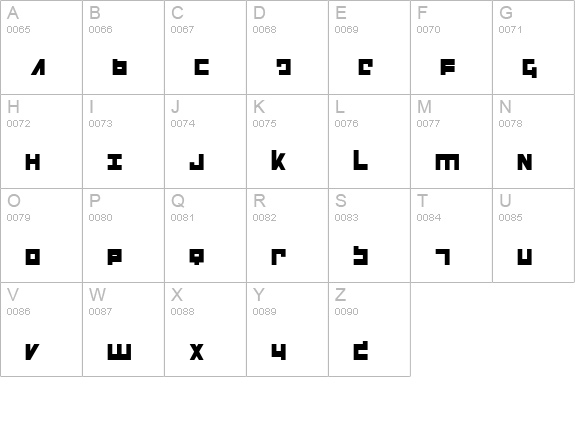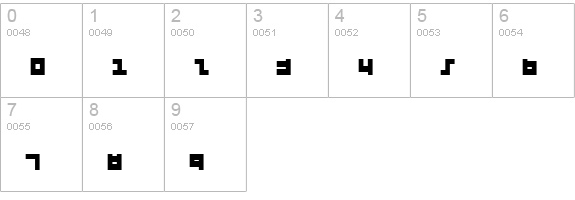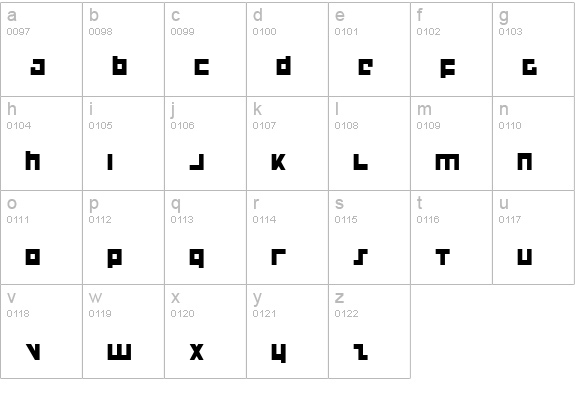
Flight Corps Condensed is a distinctive, condensed-width variant in the Flight typeface family \xE2\x80\x94 well suited to design and typography projects.
Flight Corps Condensed is a sleek and modern sans-serif font that exudes professionalism and sophistication. With its clean lines and bold presence, this typeface is perfect for conveying a sense of authority and precision in any design project. The condensed style allows for efficient use of space while maintaining readability and impact. What makes Flight Corps Condensed even more appealing is that it is available for free download at FontsMarket.com. This means that you can easily access this high-quality font and use it in your projects without any cost. Whether you're working on branding, advertising, or editorial design, Flight Corps Condensed is a versatile and reliable choice that will elevate your work to the next level. Don't miss out on this opportunity to enhance your designs with a premium font that is both stylish and accessible.